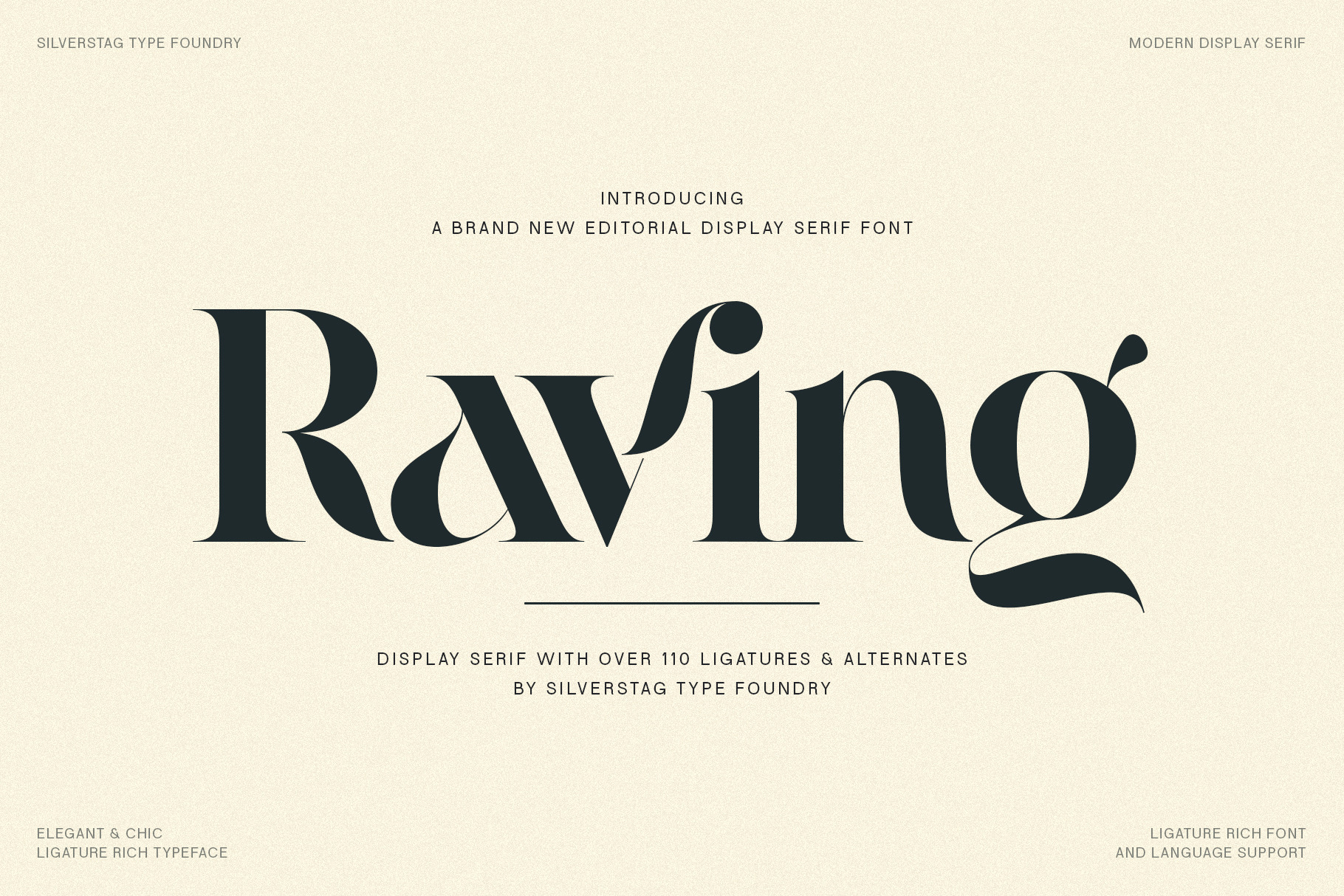
Raving Display Editorial Serif Font
Introducing Raving Display: The High-Contrast Serif That Will Elevate Your Designs
Graphic designers, get ready for a font that breaks all the rules! Raving Display is a stunning display serif where elegance meets high-voltage drama. Its breathtaking contrast between razor-thin hairlines and powerfully bold strokes will transform your headlines, logos, and branding into unforgettable works of art.
Key Features for Design Dominance:
- Extreme Contrast = Extreme Impact: Raving Display is NOT for the faint of heart. Perfect for designs that demand attention.
- 110+ Alternates & Ligatures: Customizability is key! Craft a truly unique look with a vast array of stylistic options.
- Multilingual Powerhouse: Raving Display supports over 90 languages, ensuring your designs have global reach.
- Designer's Playground: This font is built for experimentation and pushing your creative boundaries.
Where Raving Display Shines:
- Unforgettable Headlines & Posters: Make a statement that can't be ignored.
- High-Fashion Branding: Luxury, editorial, and brands with attitude are Raving Display's perfect match.
- Cutting-Edge Editorial Design: Infuse magazines, websites, and features with a dramatic, modern flair.
- Packaging That Pops: Stand out on the shelf with Raving Display's bold presence.